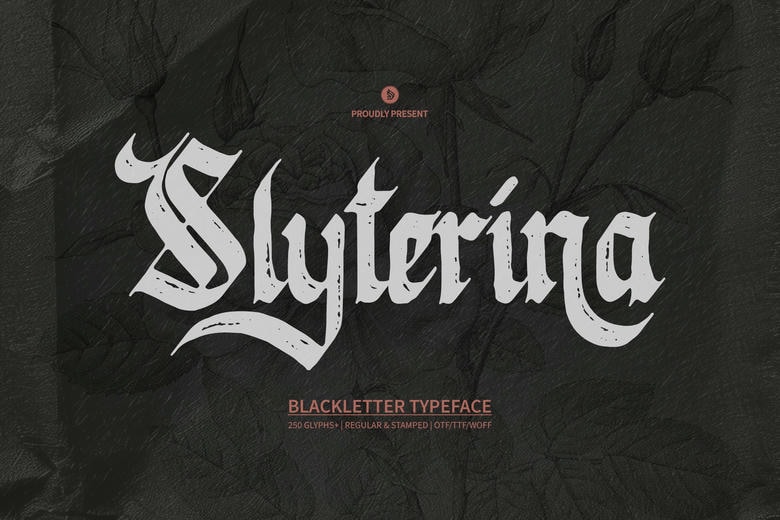
Sylterina Font
Slyterina is a strong and romantic blackletter typeface combining a gothic sense with classic sophistication. Available in more than 250 glyphs, with averaging and stamped variations too, it’s made for tattoo design, heavy metal artwork, poster, publication covers and branding that craves attitude. Transport medieval drama to modern typography with this bold, stylish font face.
Sylterina Blackletter Font